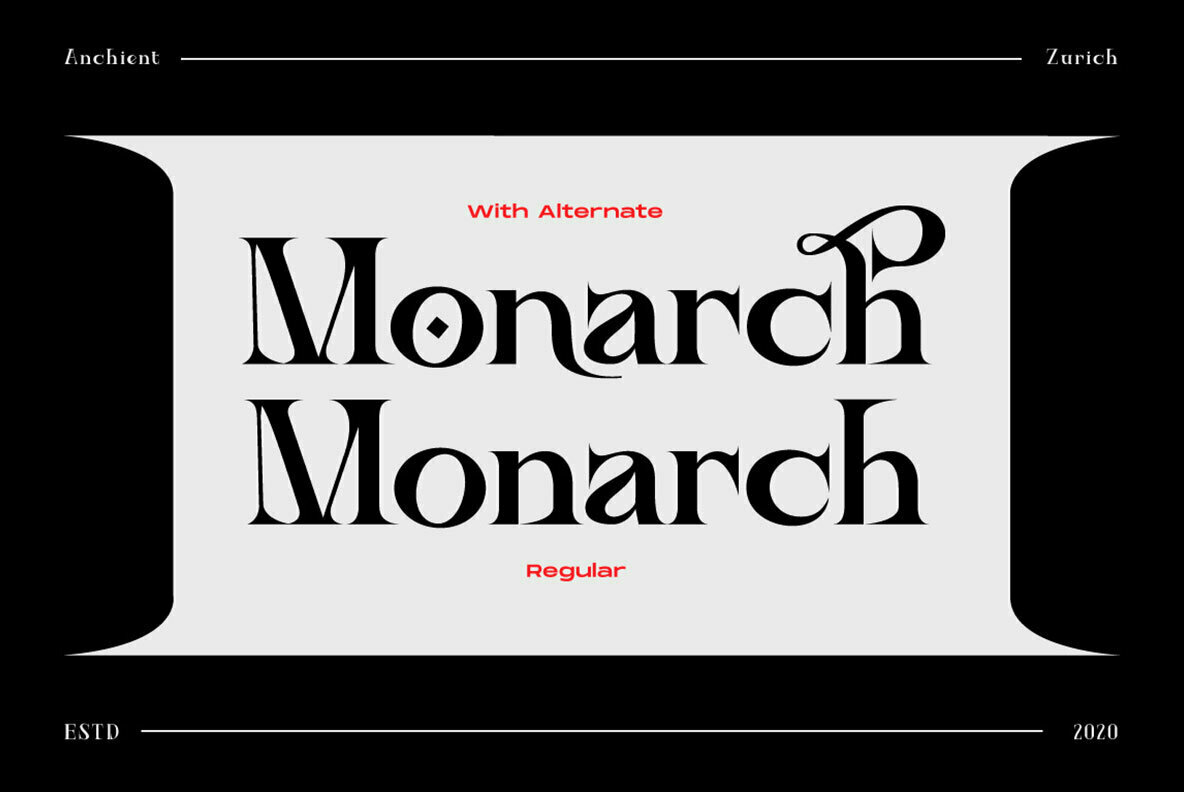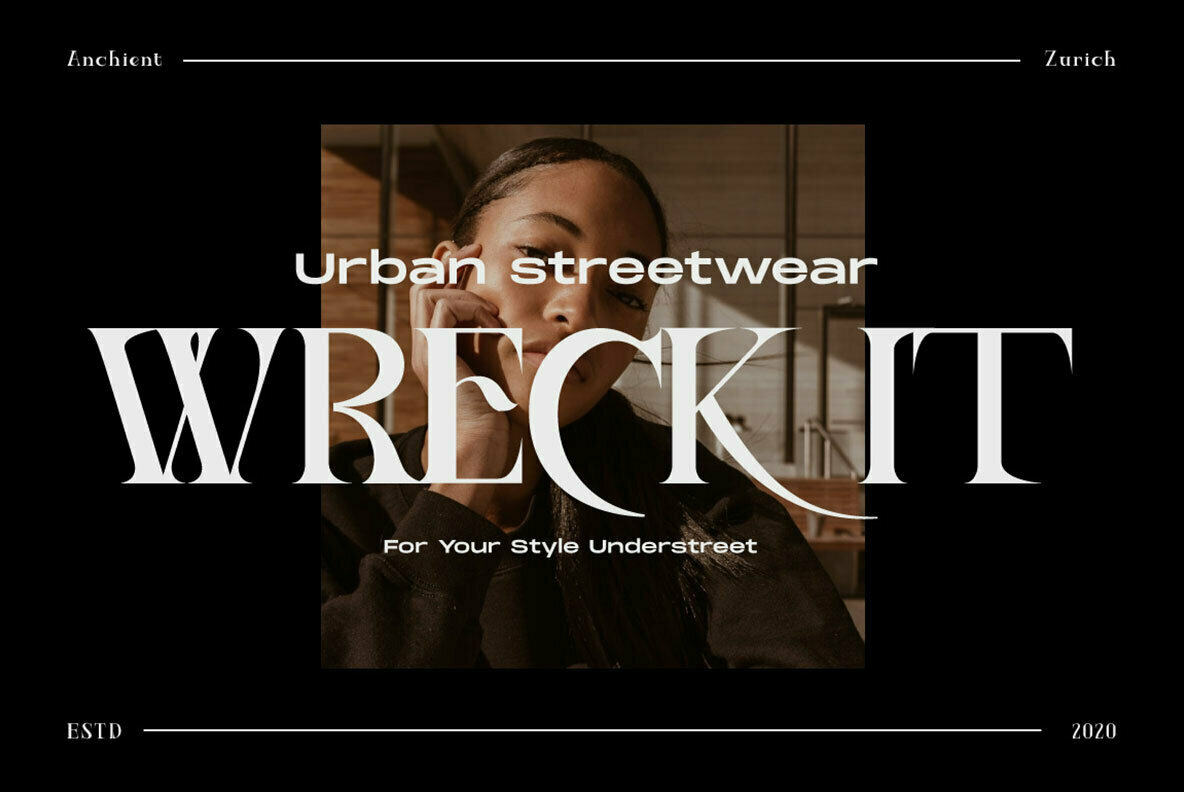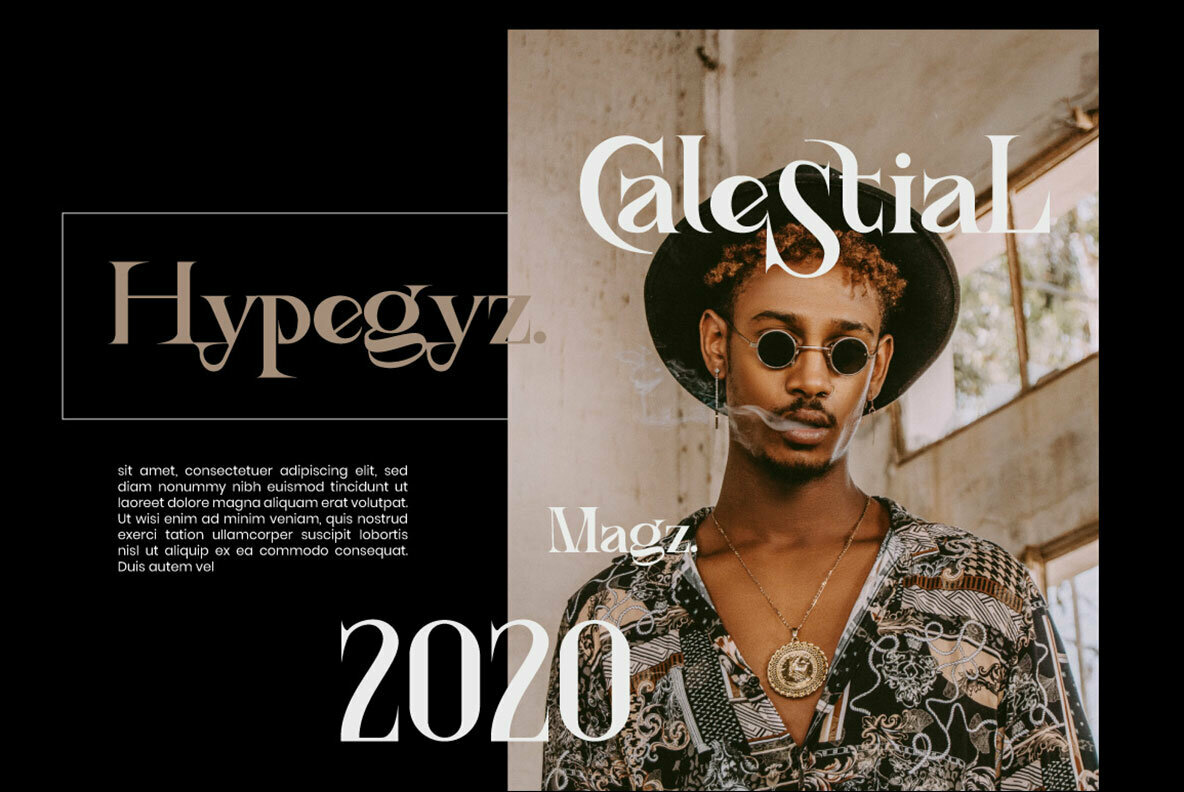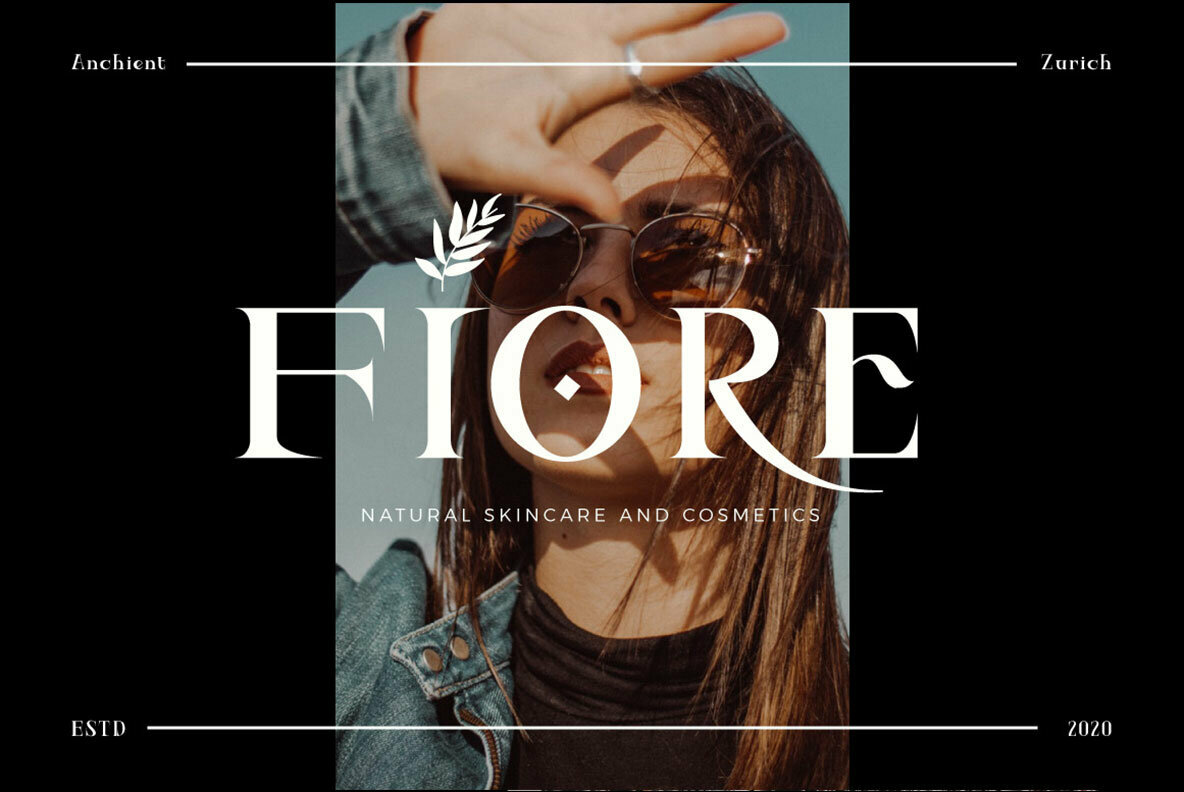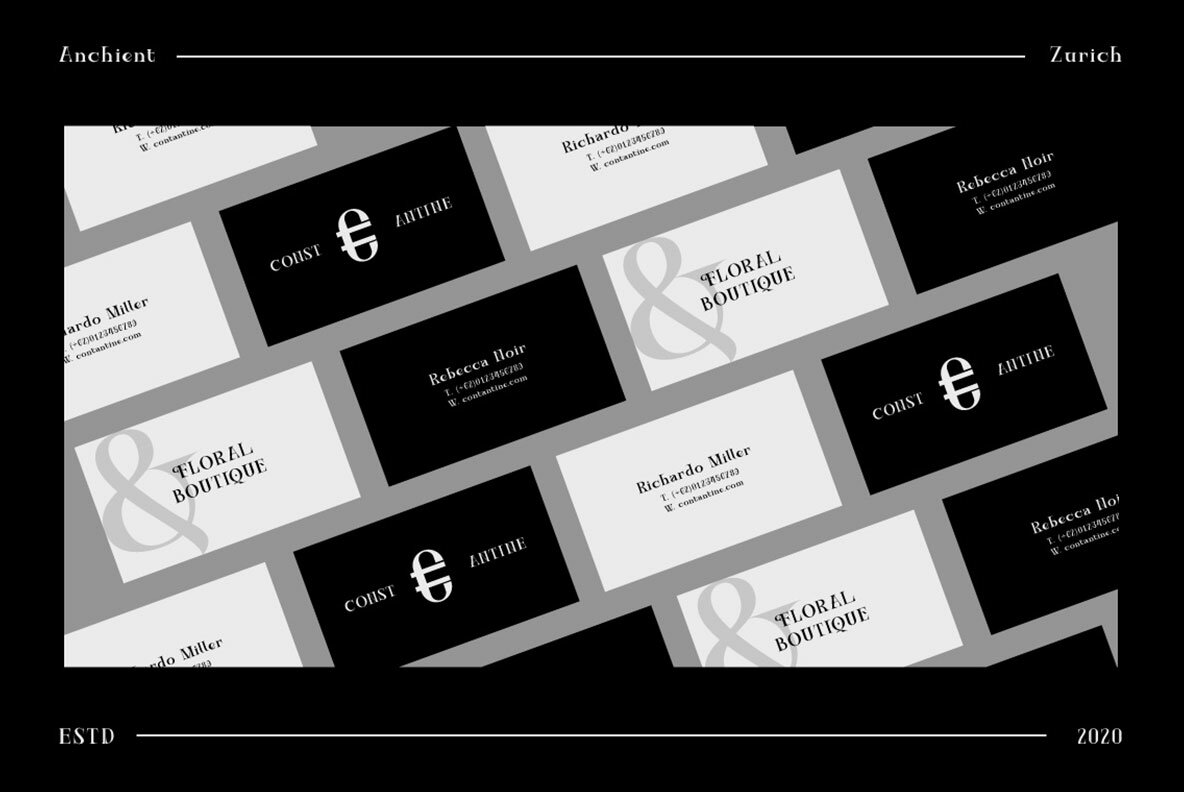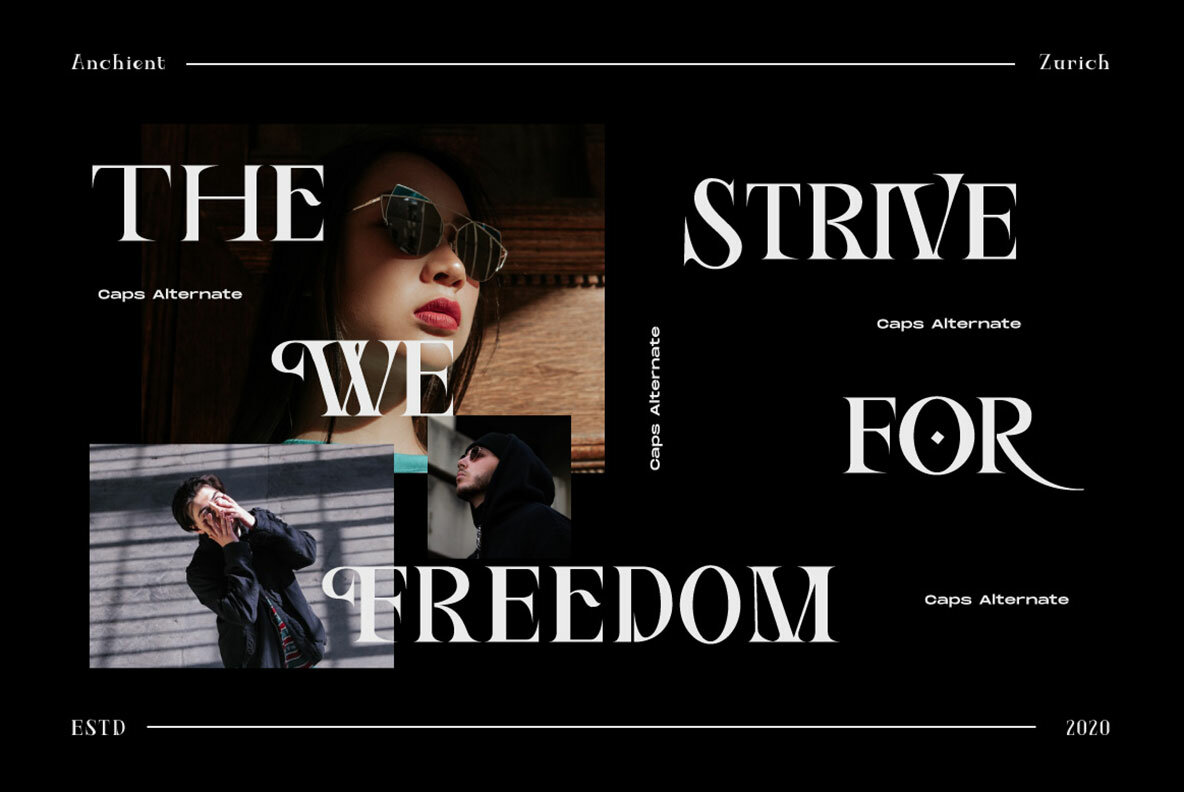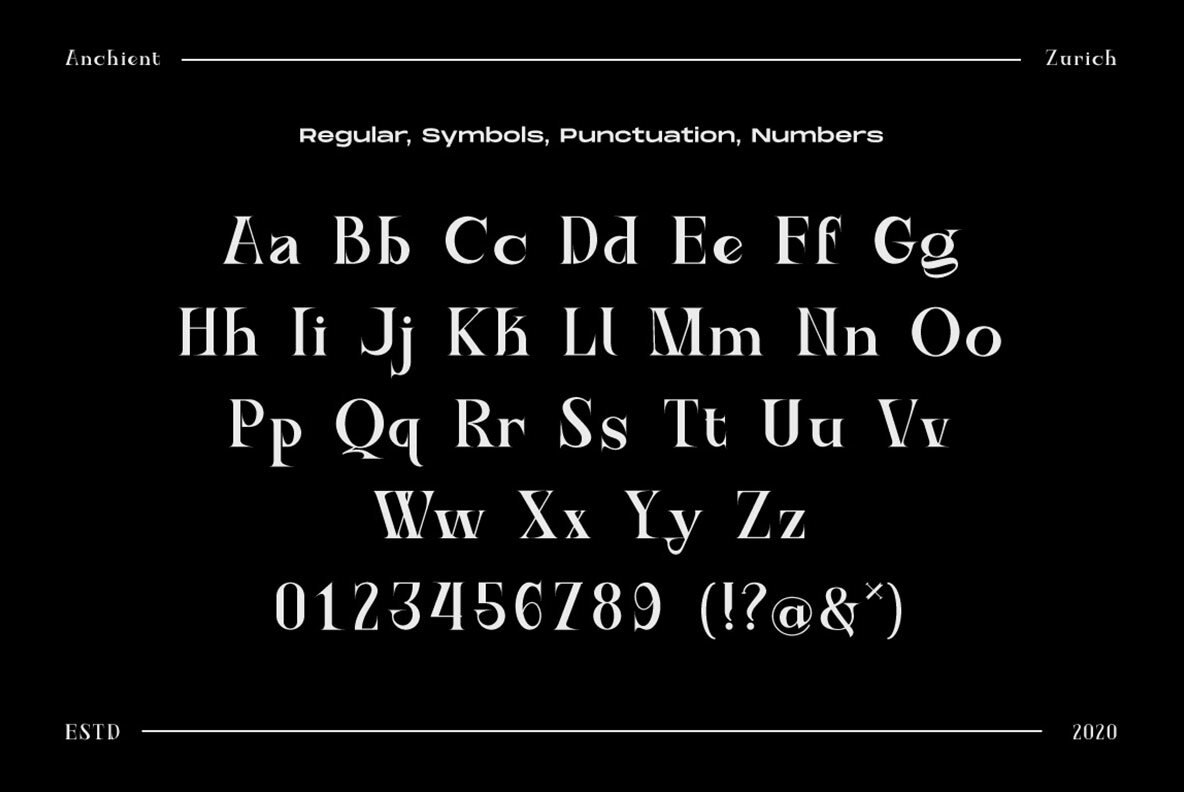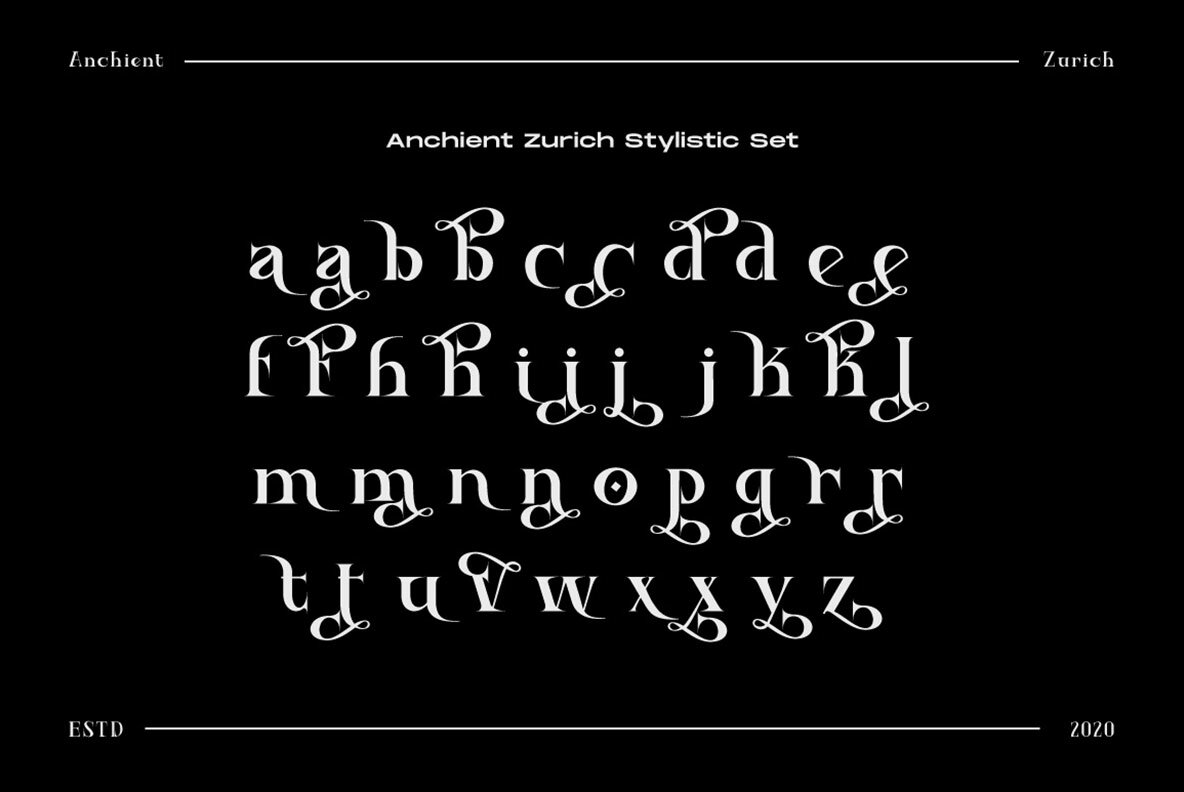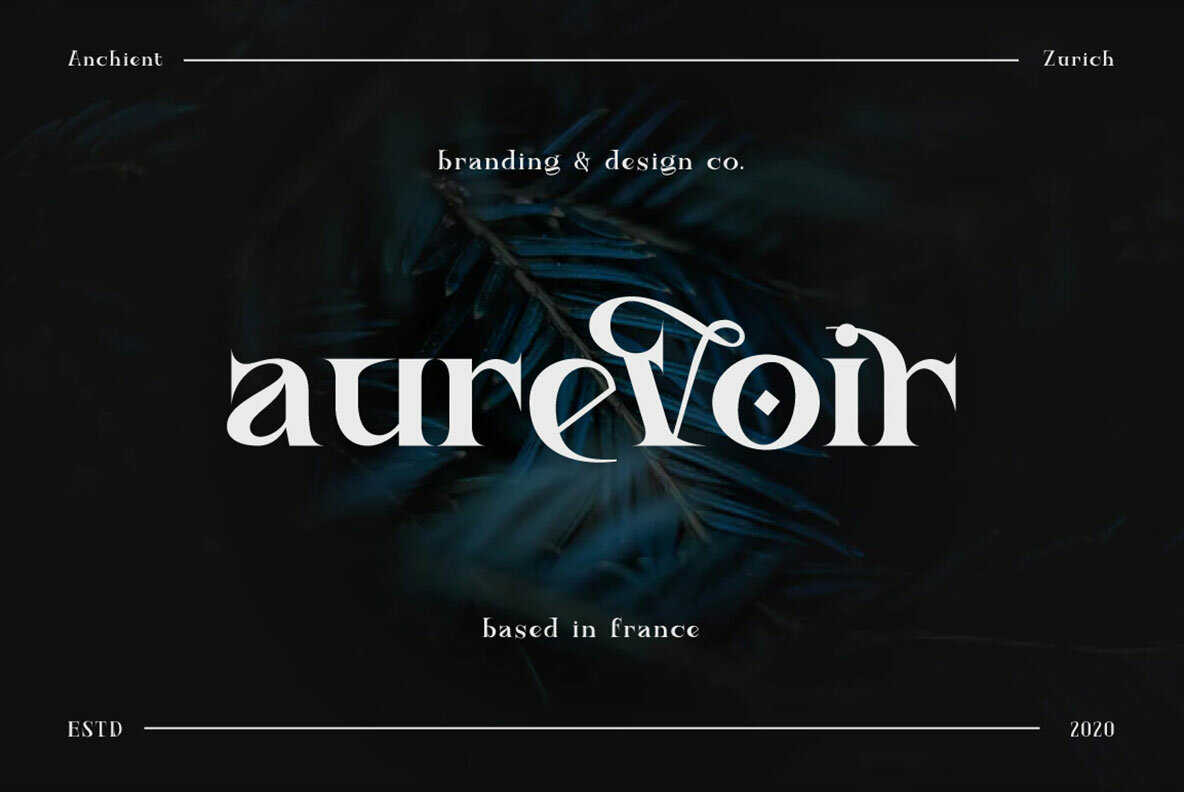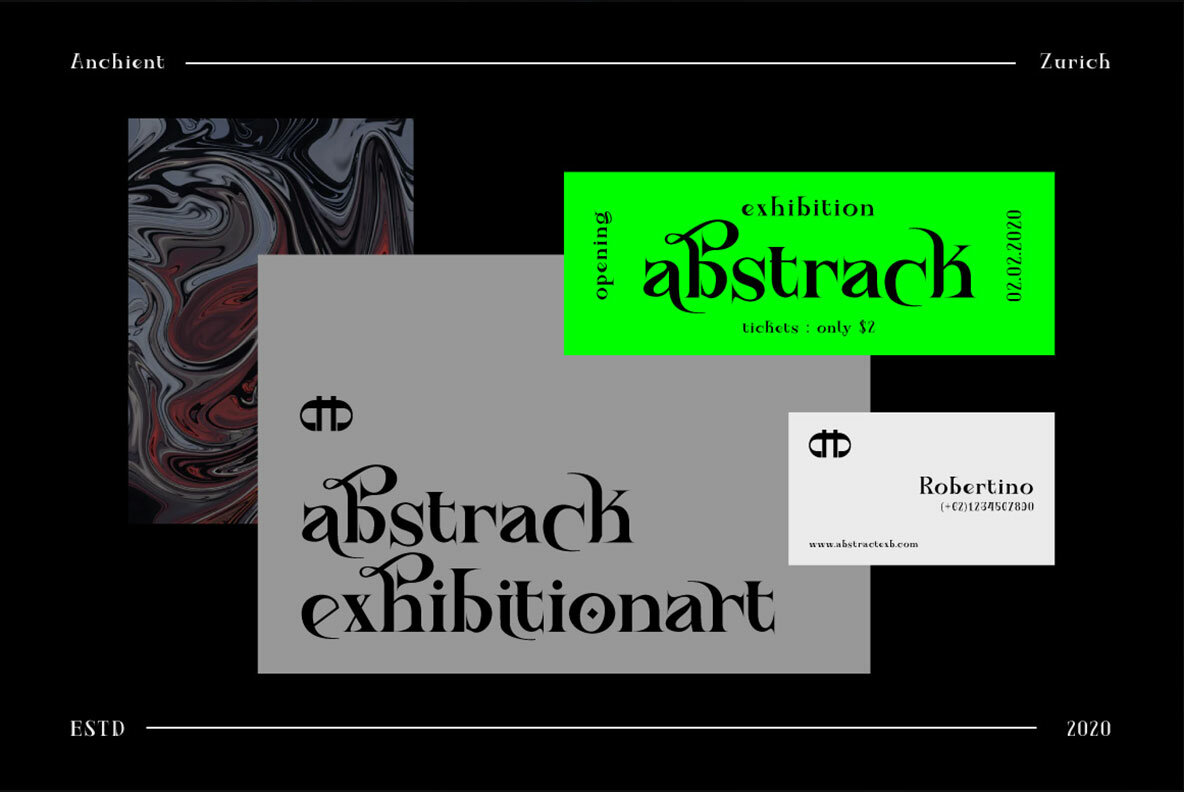
Ancient Zurich Font
Ancient Zurich Regular
Ancient Zurich Backslant
Ancient Zurich Slant
Embodying the essence of timeless sophistication, Ancient Zurich offers an elegant serif style perfect for bold headings and refined wedding invitations. Crafted with an eye for detail, this typeface accommodates an extensive range of characters and ligatures, making it not only versatile but essential for diverse linguistic scripts across Europe. Striking in its design, Ancient Zurich effortlessly complements light script fonts or minimal sans serifs, providing a refined balance to any project.Ancient Zurich: Refined Elegance for Memorable Designs